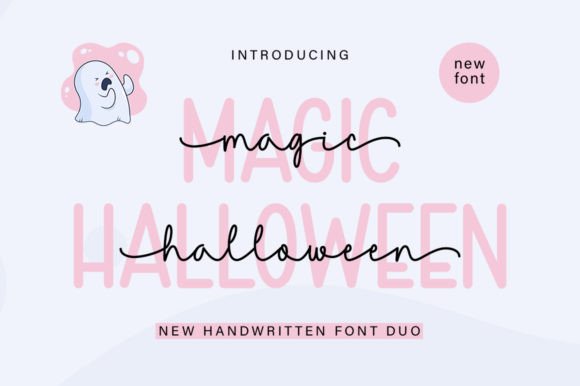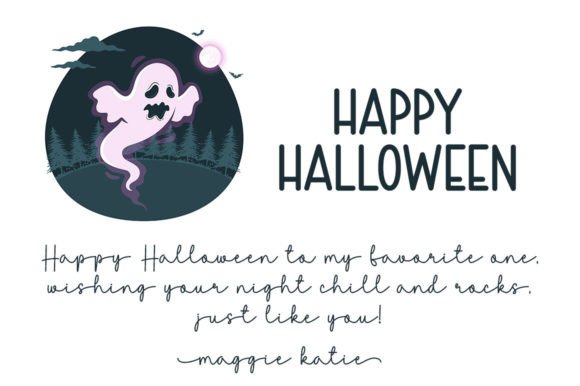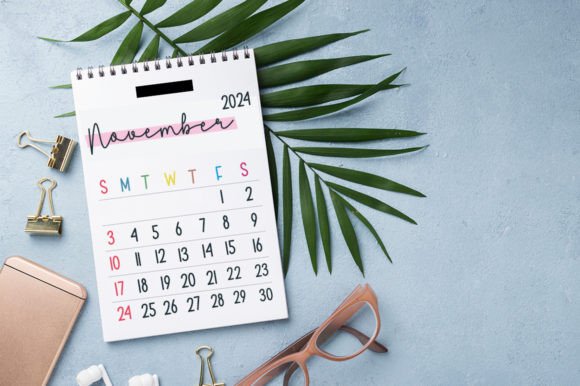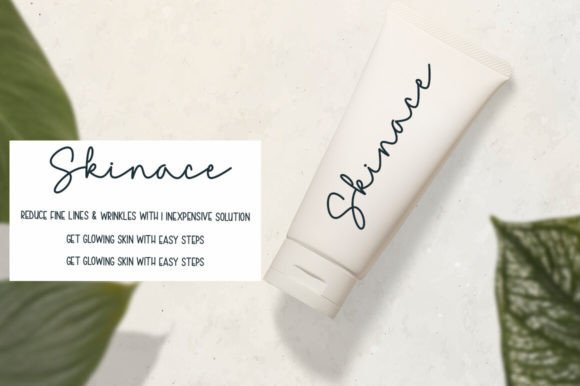
Magic Halloween Duo Font
About the Magic Halloween Duo Font
Make a bold statement with Magic Halloween Duo Font, a powerful and memorable font. Magic Halloween Duo is a stylish and delicate duo font (sans serif and script) suitable for a wide spectrum of applications. From greeting cards to headlines, this font will guarantee a romantic touch to each of your creations! Magic Halloween Duo is PUA encoded which means you can access all of the glyphs and ligatures with ease.
This duo font excels in projects requiring a touch of whimsical elegance. Ideal applications include branding for boutiques, stationery design, wedding invitations, or Halloween-themed projects where the script font adds a touch of spooky charm, and the sans-serif offers readability for supporting text. Avoid using it for large blocks of body text or UI elements; the script’s delicate nature compromises readability in such contexts.
Pair the script font with a clean sans-serif like Lato for a modern contrast, or a geometric sans-serif such as Futura for a more sophisticated feel. The sans-serif element pairs well with bolder display fonts for impactful headlines. For a more traditional feel, consider pairing it with a classic serif such as Garamond.
Magic Halloween Duo’s overall personality is sophisticated yet playful, achieving a balance between romantic and slightly spooky. Its best applications highlight this duality, showcasing both the elegant script and the versatile sans-serif component.
Magic Halloween Duo Font Usage Examples
Magic Halloween Duo Font Example